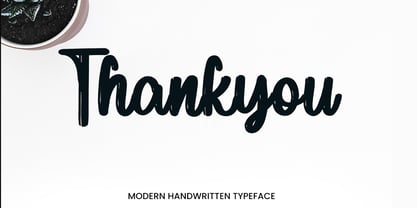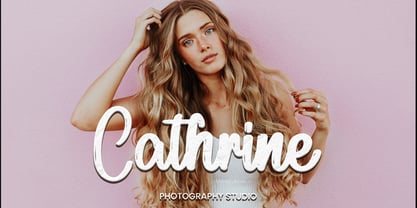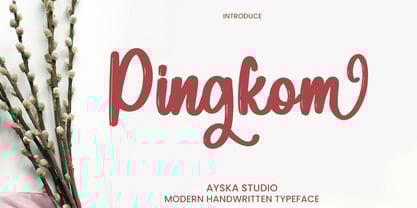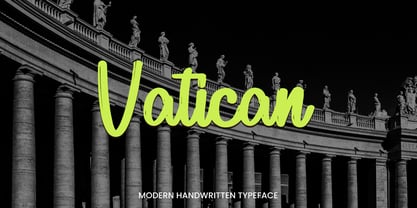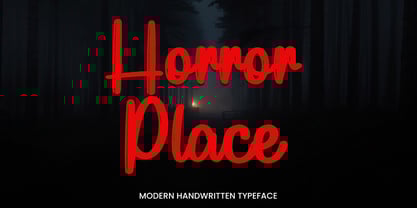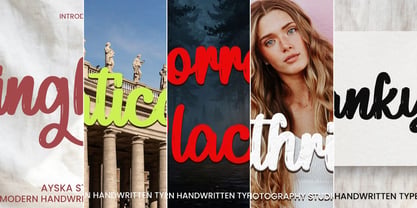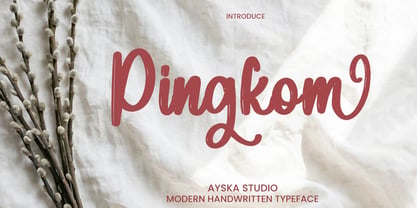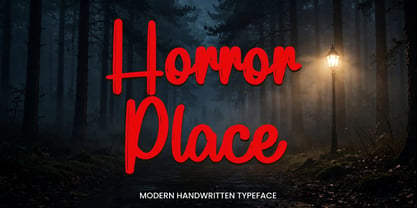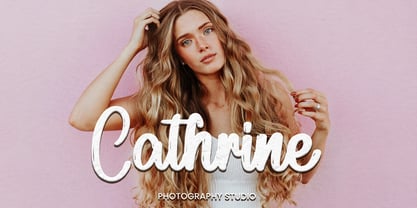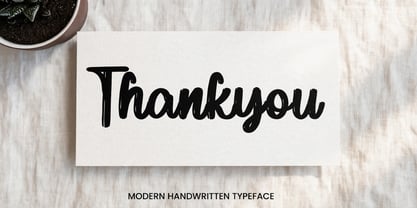
Pingkom
by Ayska
The Pingkom Font Family was designed by Dhoni Trihatmoko and published by Ayska. Pingkom contains 1 styles. More about this family
Pingkom font, I was born with a handwritten font but still, a monoline style is elegant and has very neat kerning. Immerse your designs with the invigorating charm of Pingkom font, a wonderfully lively handbrush handwritten font that mirrors the free-spirited essence of easy relaxed days. Its naturally etched strokes and enthusiastically shaped letters introduce an unearthly organic feel to your projects, all wrapped up in warmth and affection.
Designers: Dhoni Trihatmoko
Foundry: Ayska